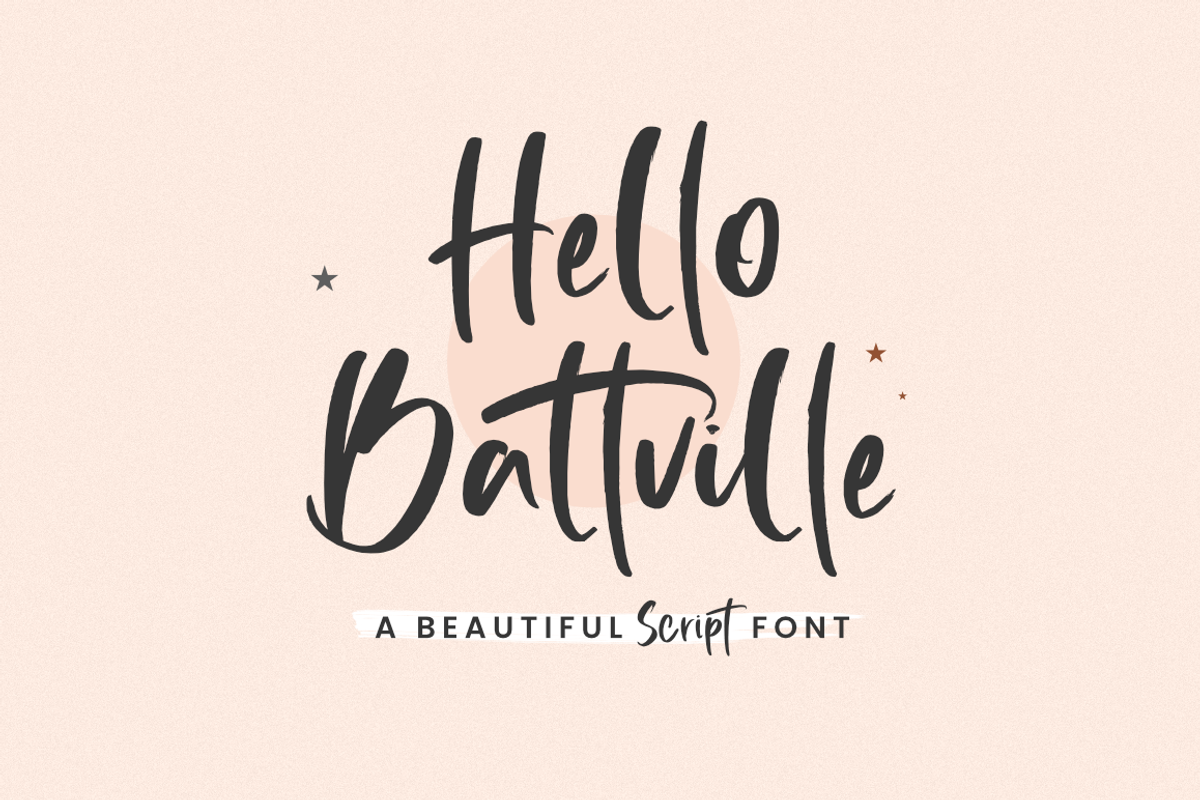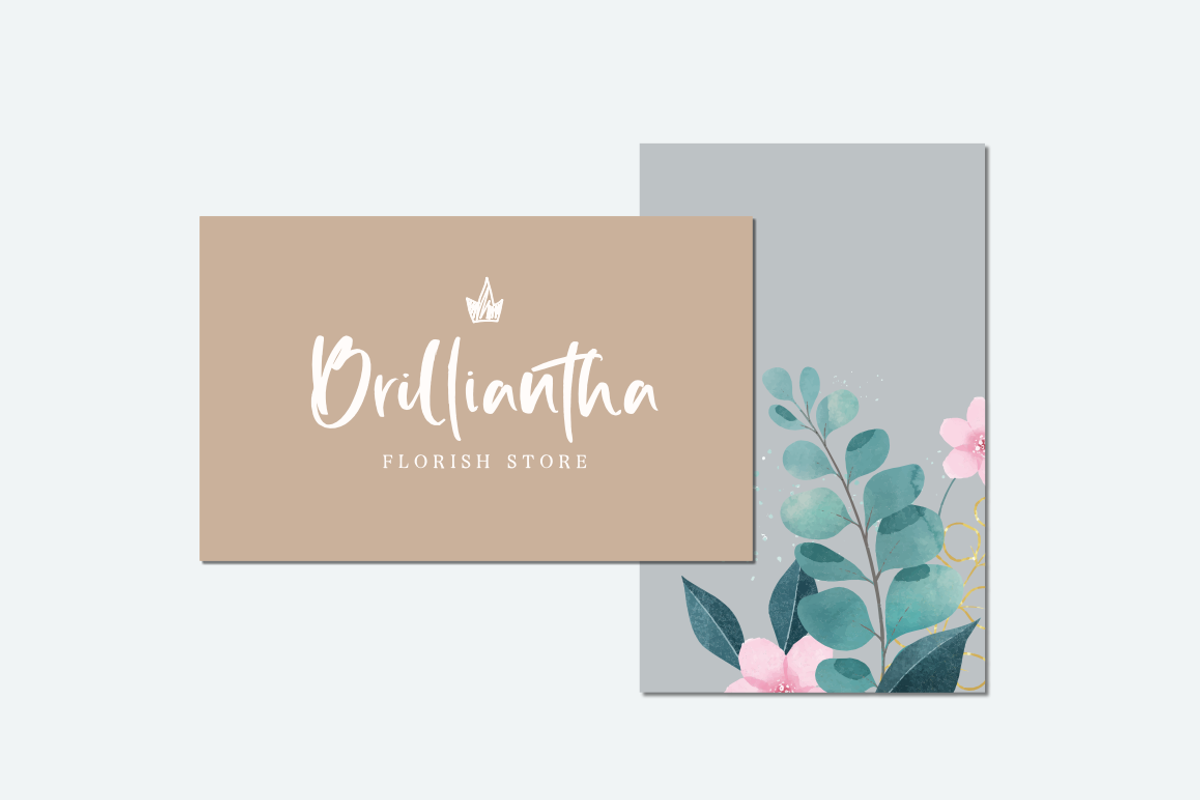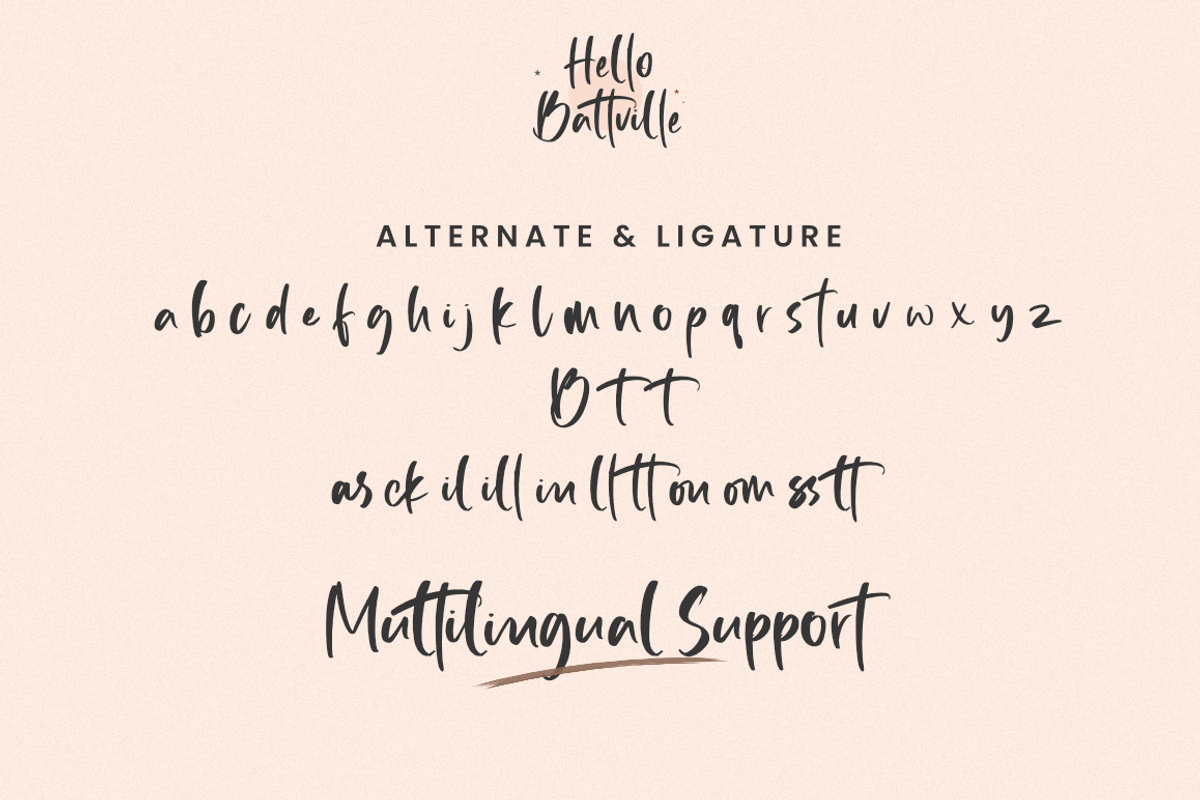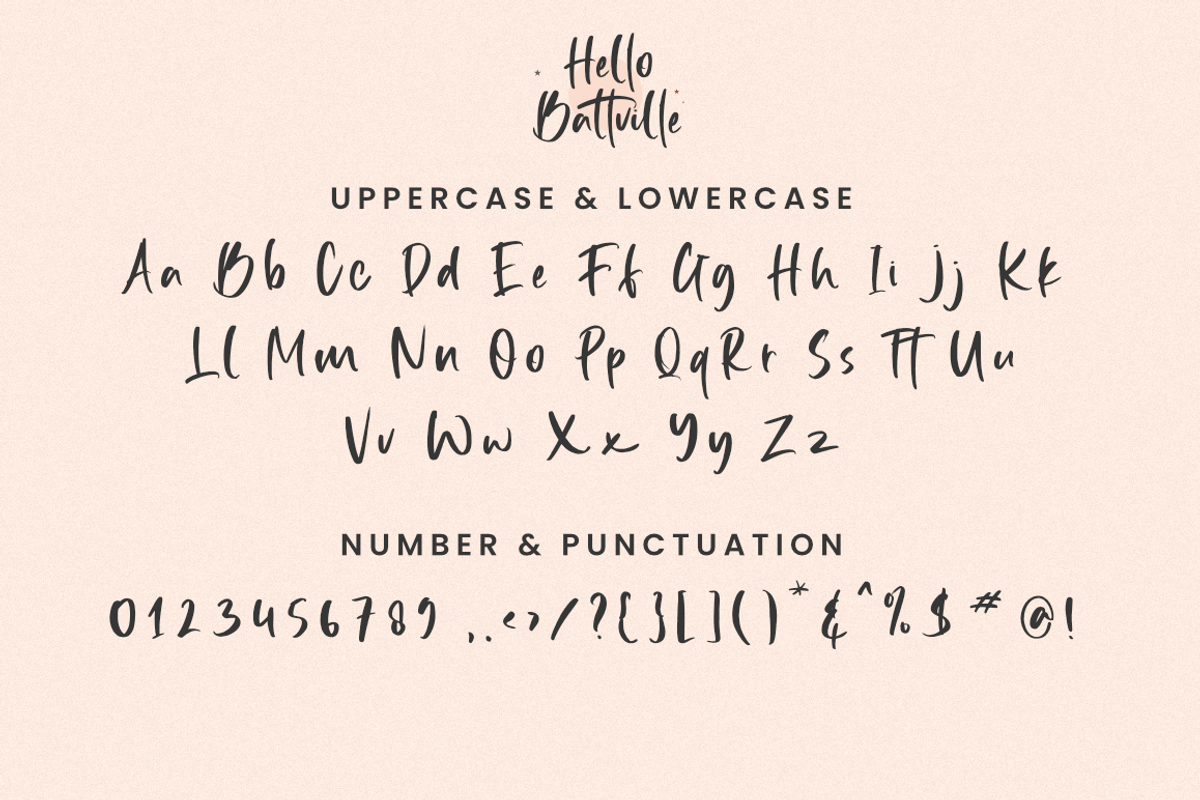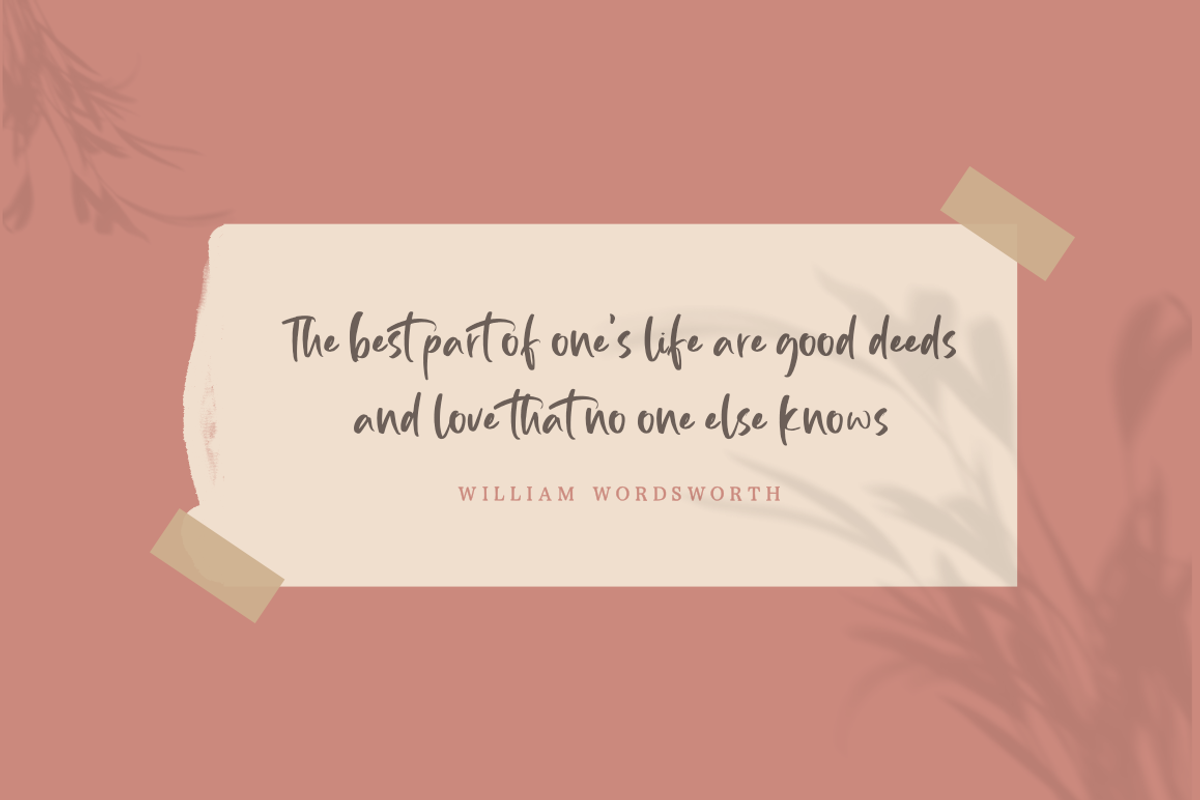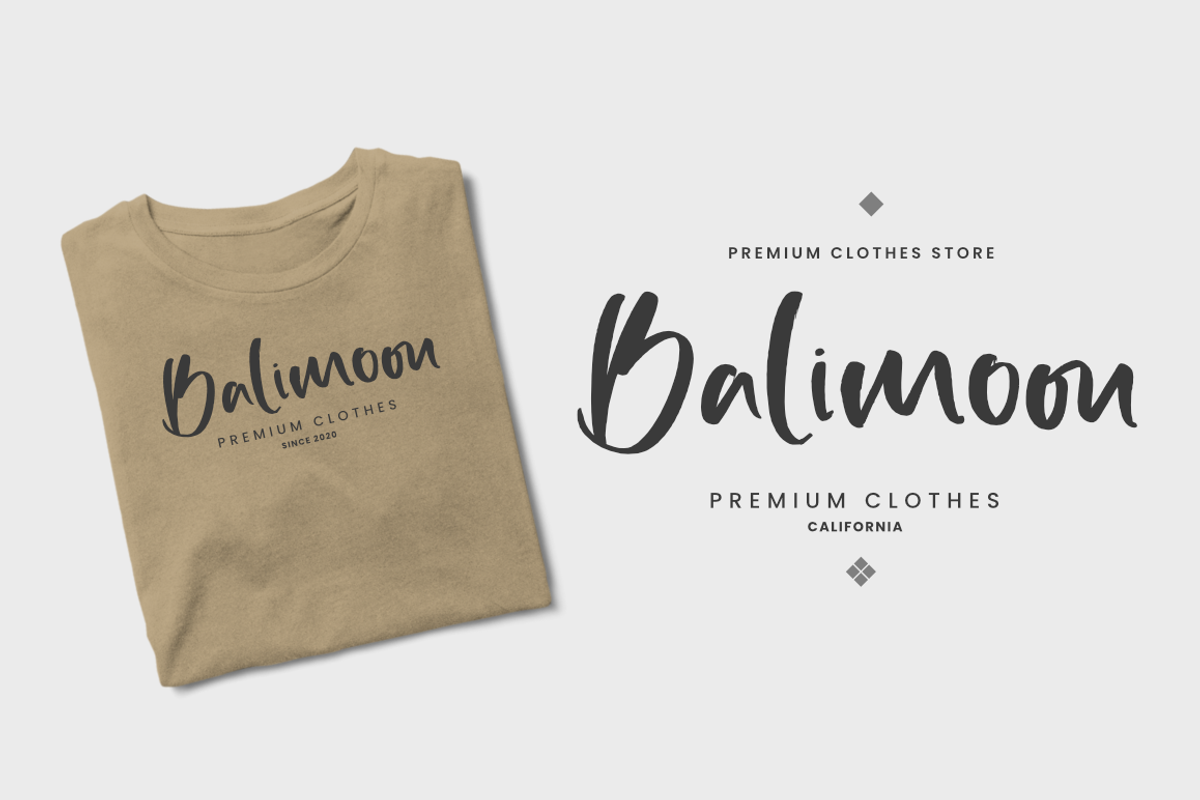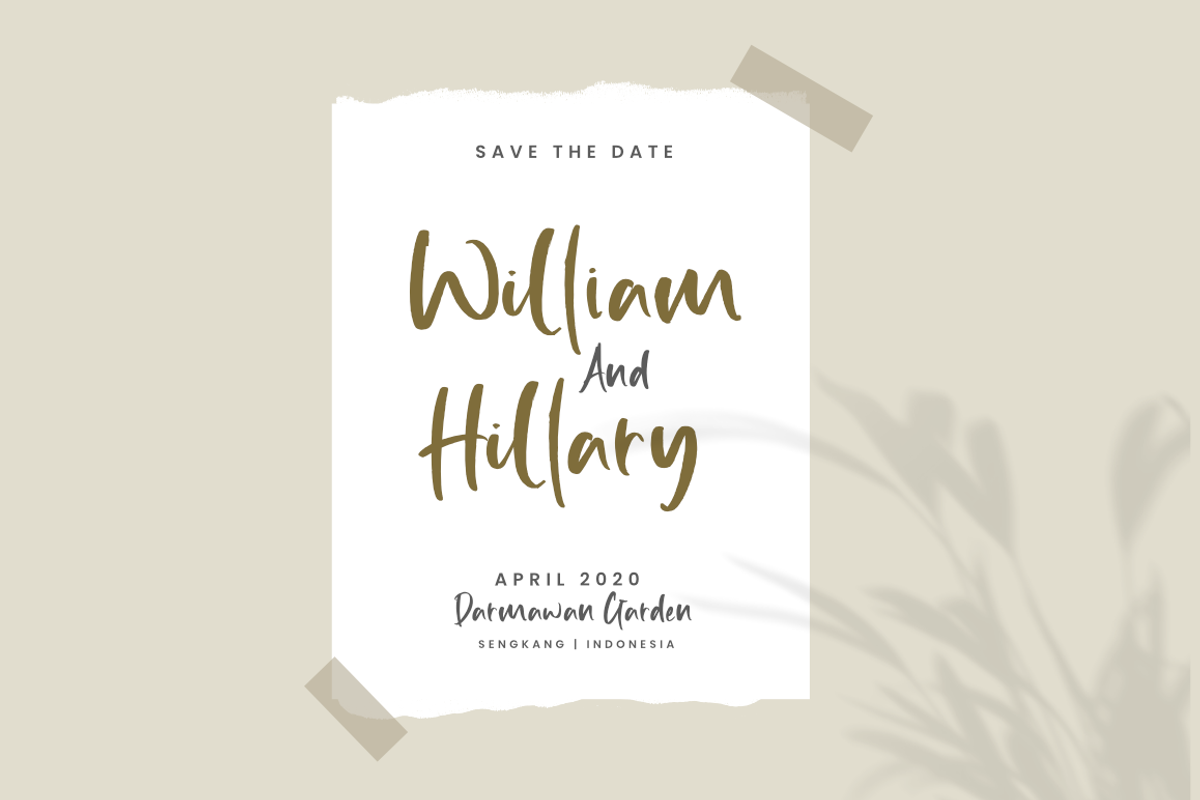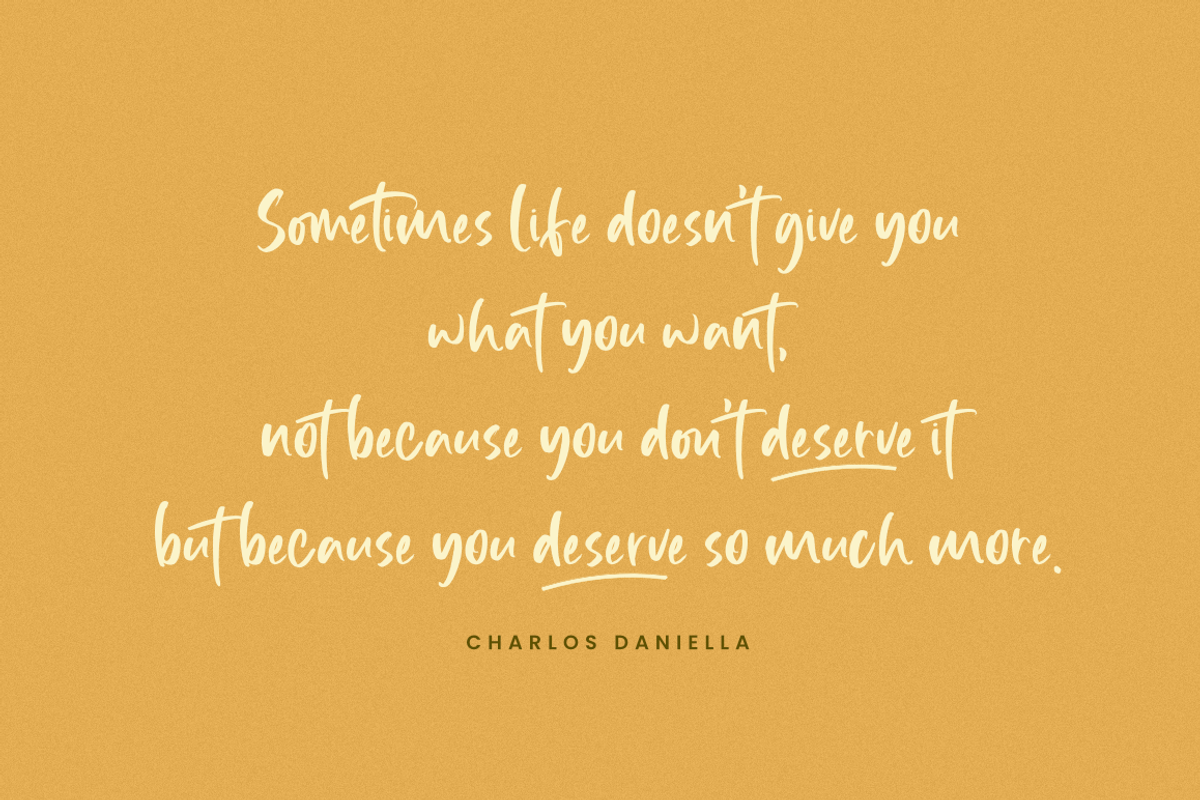
Hello Battville
Hello Battville is a beautiful handwritten font, with the lovely shape of each letter, of course, this can make your design more attractive. There are alternate uppercases and standard ligatures that you can use, of course, this will help you in beautifying your design. Hello Battville is suitable for logo, branding, magazine, t-shirt, clothes, weddings, and many more